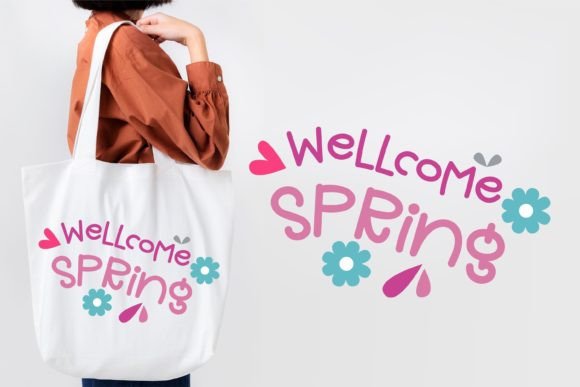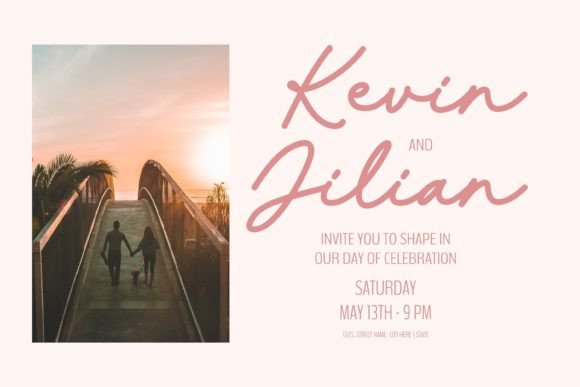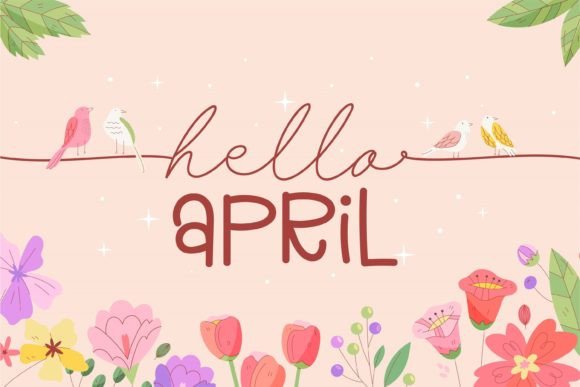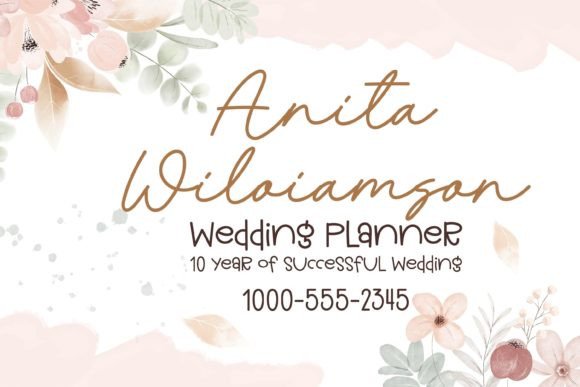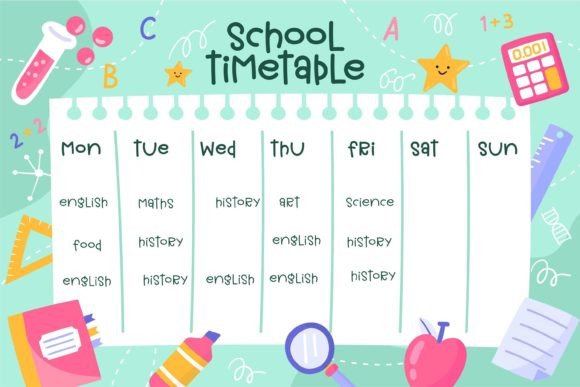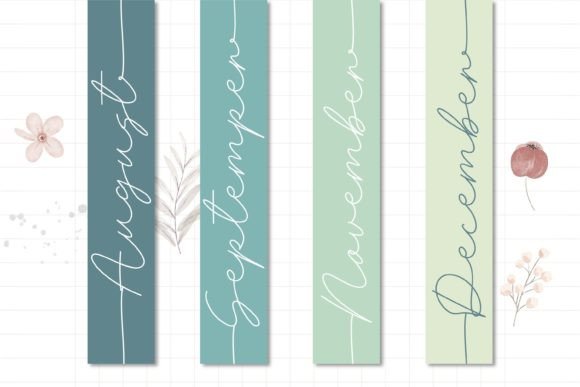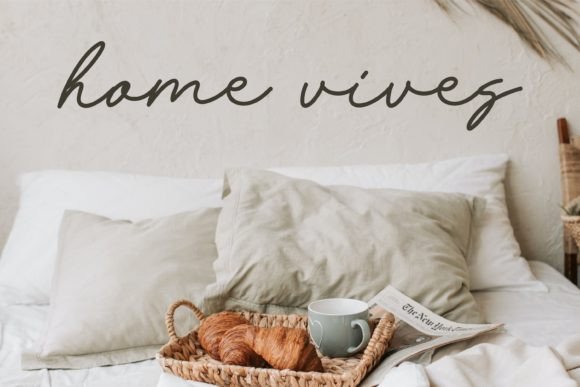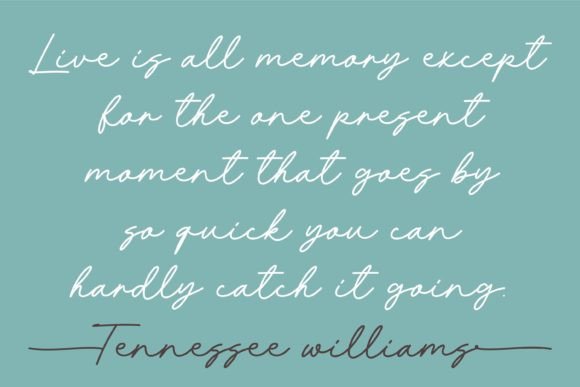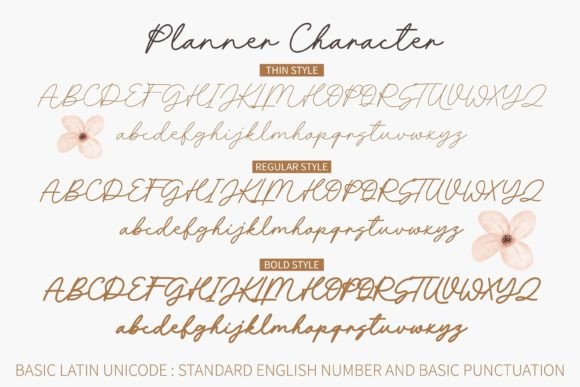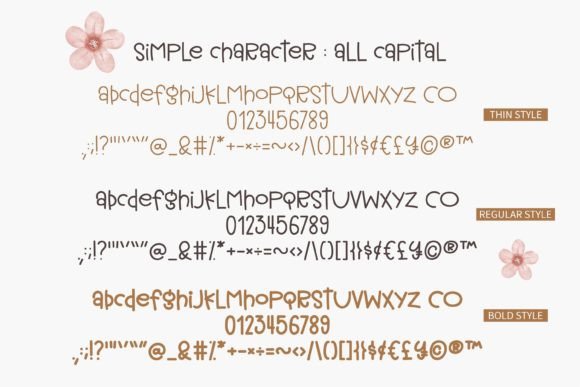
Simple Planner Font
About Simple Planner Font
Simple Planner is not just a font; it’s a duo-styled handwritten masterpiece that exudes charm and delicacy. With an equal measure of charm and delicateness, Simple Planner has the power to turn any creative idea into a standout. Fall in love with its incredibly versatile style and let it be the key to creating gorgeous wedding invitations, beautiful stationary art, eye-catching social media posts, and so much more.
This font duo is a harmonious blend of two styles, each contributing to the overall charm. Whether you’re aiming for a rustic wedding invitation or crafting elegant social media posts, Simple Planner adapts effortlessly, adding a touch of sophistication to your designs.
Imagine the impact of Simple Planner on your wedding invitations—the duo style adding depth and personality to every word, creating an invitation that is both memorable and enchanting. The same versatility extends to stationary art, where Simple Planner becomes the brushstroke that brings your artistic vision to life.
For social media posts, Simple Planner becomes a tool for crafting eye-catching visuals that stand out in the digital landscape. Its delicate charm adds a touch of authenticity, making your content not just aesthetically pleasing but also uniquely yours.
In essence, Simple Planner is more than just a typeface; it’s a creative companion that enhances the beauty of your projects. Its duo-styled elegance is a testament to its versatility, ensuring that it becomes the go-to choice for a wide range of design applications. Let Simple Planner be the catalyst that turns your creative ideas into standout masterpieces.